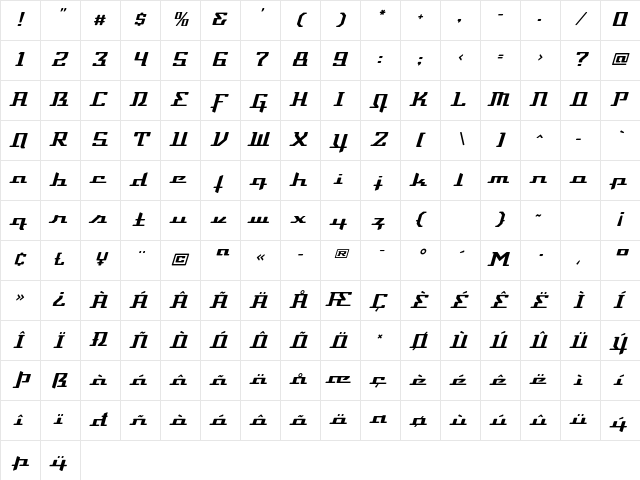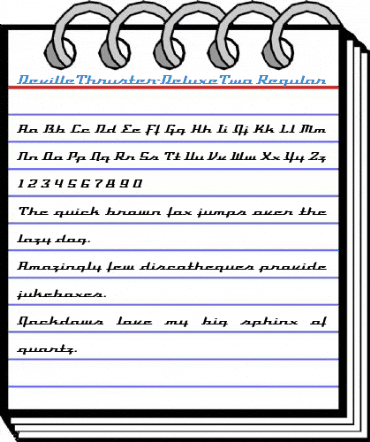
Complete DevilleThruster-DeluxeTwo Regular glyph index. Displaying only characters natively supported by DevilleThruster-DeluxeTwo Regular font.
DevilleThruster-DeluxeTwo is a composed and adaptable typeface that performs quietly and consistently across a wide range of design contexts.